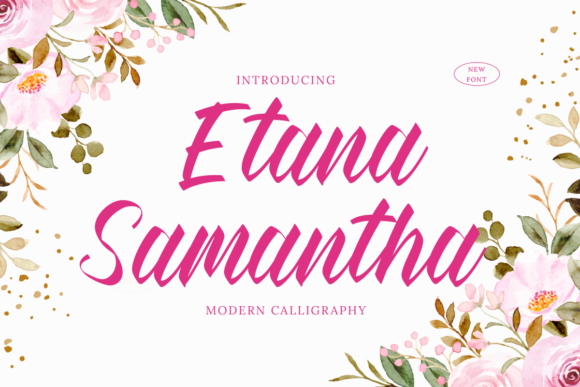
Discover the Whimsy of Etana Samantha Font
There’s something magical about the moment when a design comes together – the perfect blend of color, texture, and typography. It’s a feeling that’s hard to replicate, but with the right tools, it’s within reach. For designers seeking to add a touch of romance and elegance to their projects, the Etana Samantha Font is an invaluable asset.
This flowing and delicate handwritten font embodies the essence of charm and sophistication, making it a perfect fit for projects that require a lovely, whimsical touch. Whether you’re creating a wedding invitation, a romantic novel, or a beautiful brand identity, Etana Samantha Font is sure to captivate your audience and leave a lasting impression. As a valuable addition to any designer’s toolkit, it’s a must-have for anyone looking to add a touch of whimsy to their work.
Etana Samantha Font Key Features
- Font Family: Etana Samantha, Etana Samantha Italic, Etana Samantha Bold, Etana Samantha Bold Italic
- Unique Characteristics: Elegant, modern script font with a flowing, cursive design; ideal for creative, artistic, and design-focused applications
Etana Samantha Font Review
I recently had the chance to work with the Etana Samantha font, and overall, I was quite impressed. Here are some of my thoughts:
- ✨ The font’s elegant and sophisticated design makes it perfect for high-end branding, fashion, and luxury products.
- ✨ The font is highly versatile and can be used for a variety of purposes, from headings to body text.
- ✨ The Etana Samantha font has a wide range of weights and styles, making it easy to find the perfect fit for your design needs.
- ⚠️ The font may not be suitable for body text at smaller font sizes due to its elegant, yet delicate design.
- ⚠️ Some users may find the font too ornate or over-the-top, which may not appeal to everyone’s taste.
- ⚠️ The font may not be compatible with all devices or operating systems, which could cause display issues.
Overall, I think the Etana Samantha font is a great addition to any designer’s toolkit. While it may have some limitations, its elegance and versatility make it a great choice for high-end designs. With a little care and attention, this font can really shine and elevate your designs to the next level.
Tip: Use Etana Samantha Font to add a touch of elegance to your designs, especially for headings and titles.
Tip: Use Etana Samantha Font to add a touch of sophistication to your typography, especially for headings and titles.
Tip: Use Etana Samantha Font to add a touch of professionalism to your presentations and documents.
Etana Samantha Font is suitable for:
- Product labels and packaging
- Editorial and literary designs
Remember to use Etana Samantha Font in a way that comple
Alternatives to Etana Samantha Font for Designers
Lato Font is a popular sans-serif font designed by Łukasz Dziedzic. It’s known for its clean and modern look, making it perfect for digital design projects, such as websites, mobile apps, and digital magazines. Lato Font is more versatile than Etana Samantha Font, with a wider range of font weights and styles.
Comparison to Etana Samantha Font: Lato Font has a more neutral and modern feel, while Etana Samantha Font has a more elegant and sophisticated look. Lato Font is also more suitable for body text, while Etana Samantha Font is better for headings and titles.
Open Sans Font is a highly legible sans-serif font designed by Steve Matteson. It’s designed for digital use and is known for its clarity and readability, making it perfect for long-form content, such as articles and blog posts. Open Sans Font is more straightforward and simple compared to Etana Samantha Font, which has a more decorative feel.